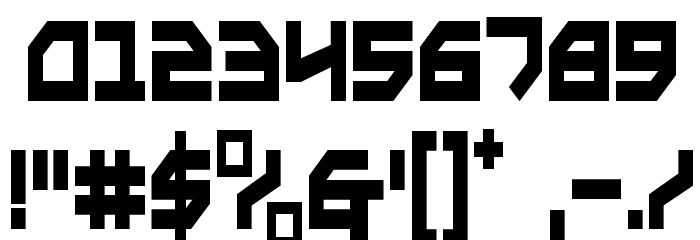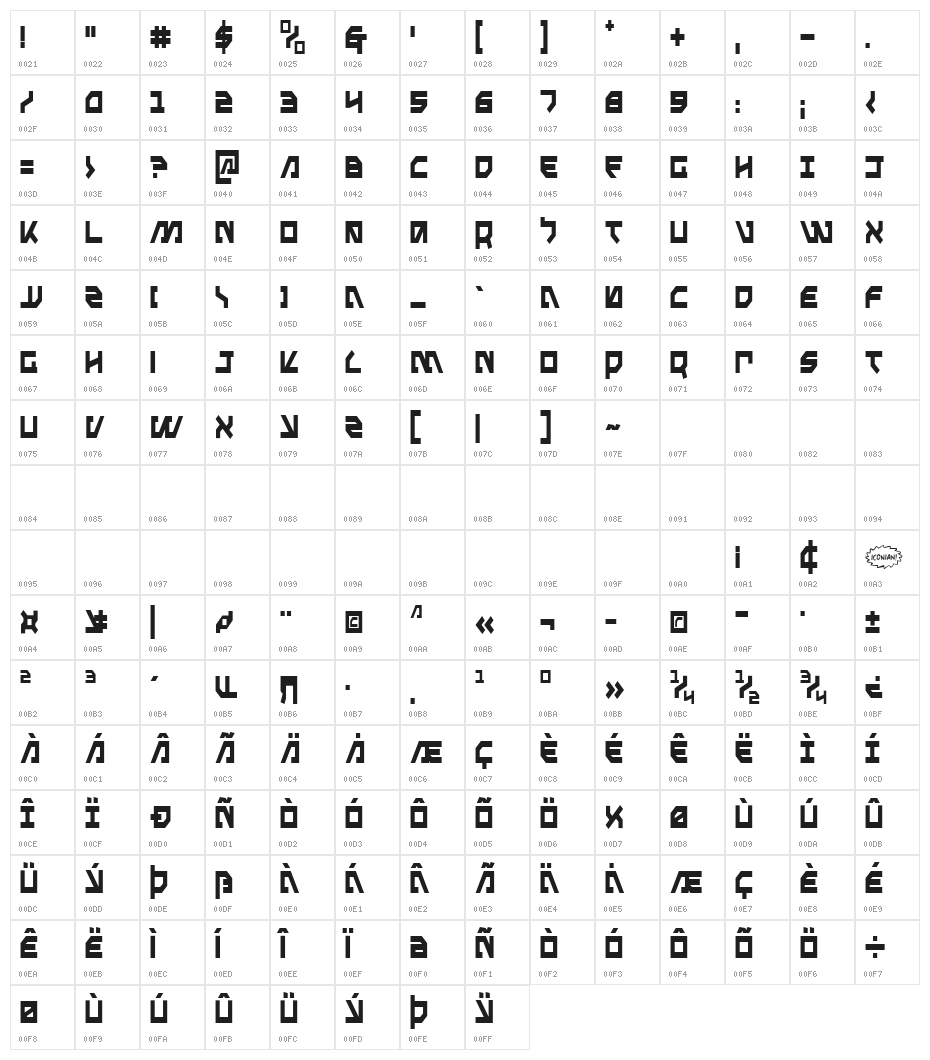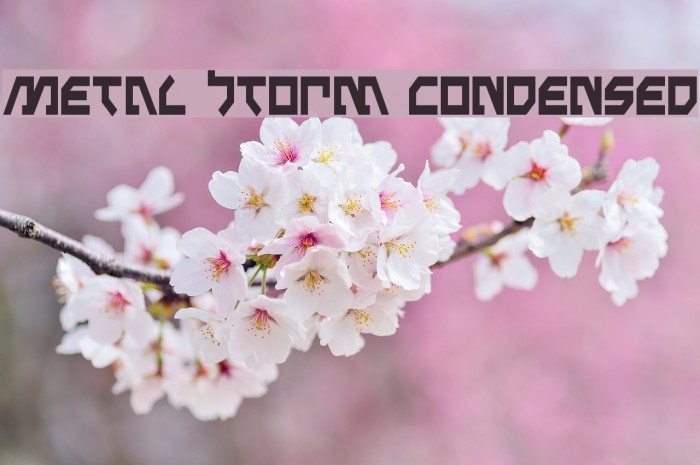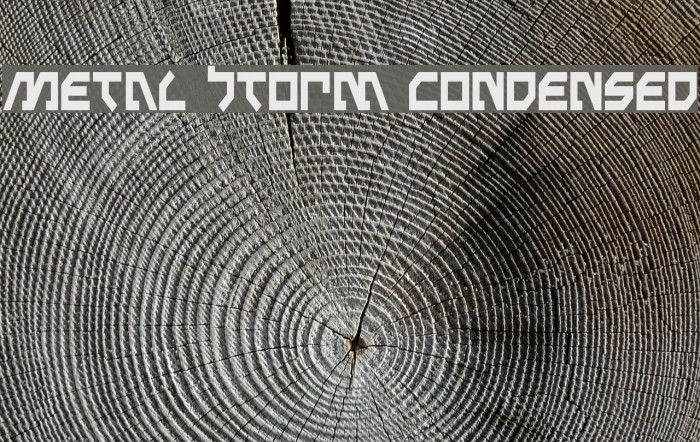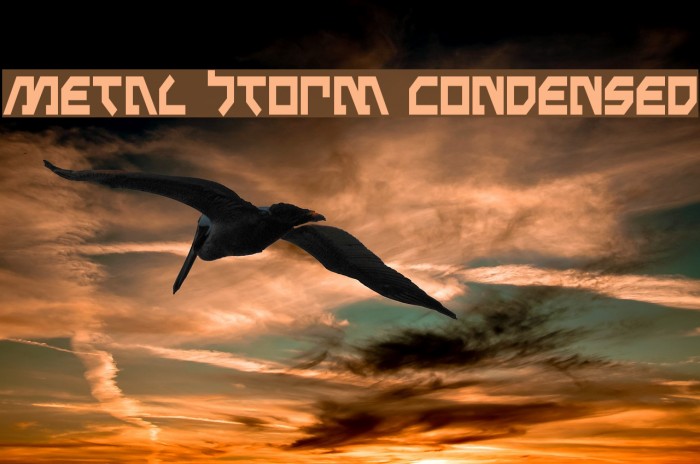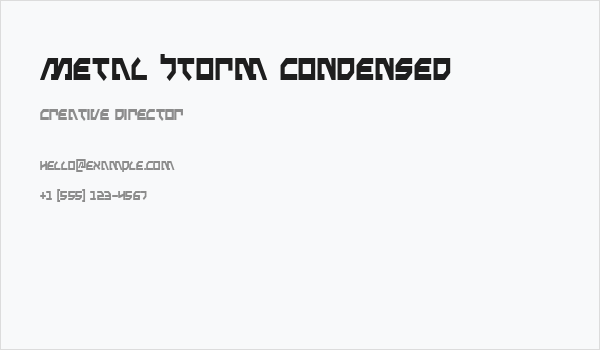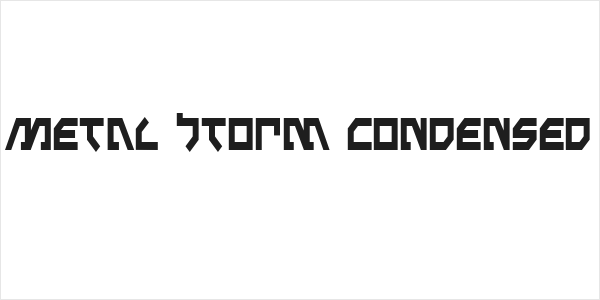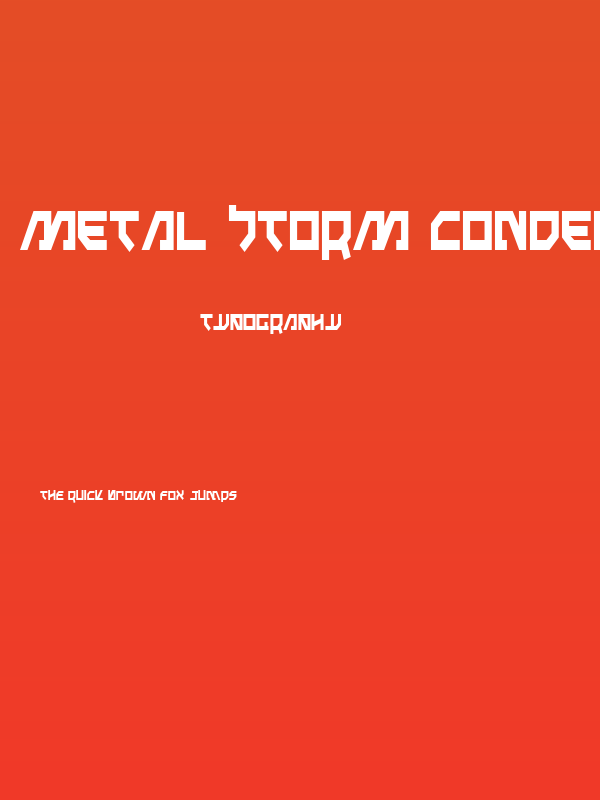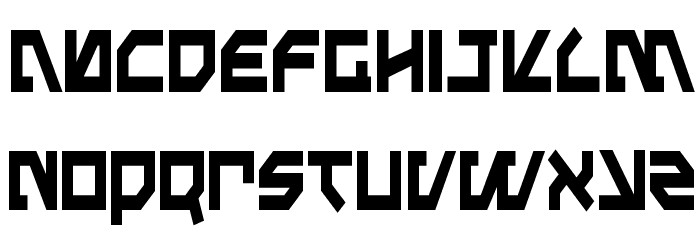
Metal Storm Condensed Font
Metal Storm Condensed Description
This font features a bold, geometric design with sharp angles and a futuristic aesthetic. The characters are condensed, creating a compact and impactful appearance. The uppercase letters are particularly striking, with a uniform height and consistent angular cuts that give a sense of movement and energy. The numerals and special characters maintain this dynamic style, ensuring a cohesive look across all text elements. The font's unique style makes it ideal for projects that require a modern and edgy feel.
| Proposed Projects | Ideal for sci-fi themed posters, video game titles, and branding for tech companies. |